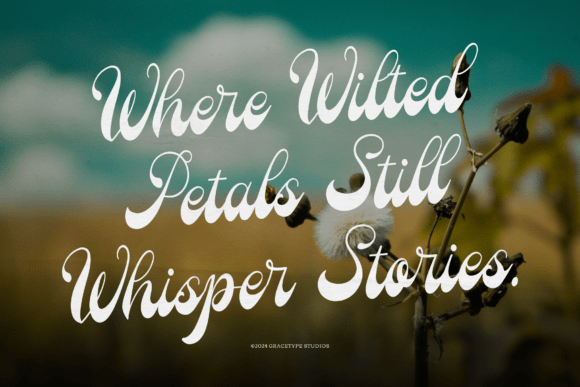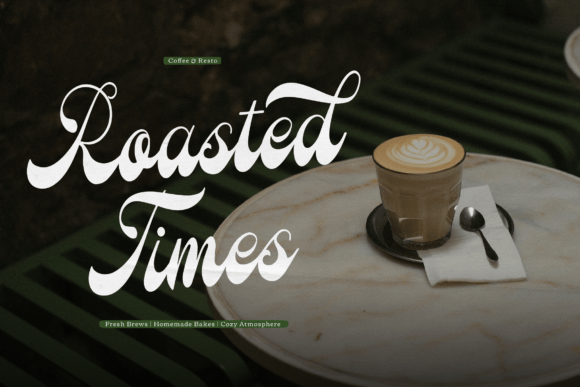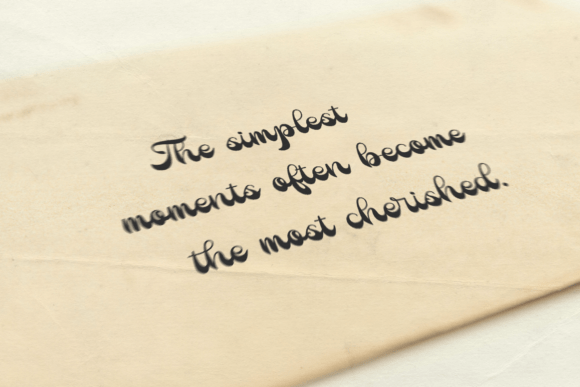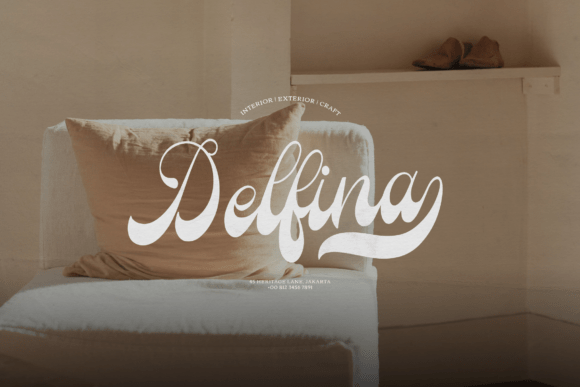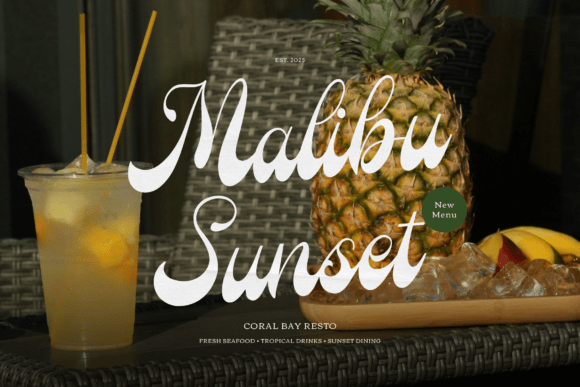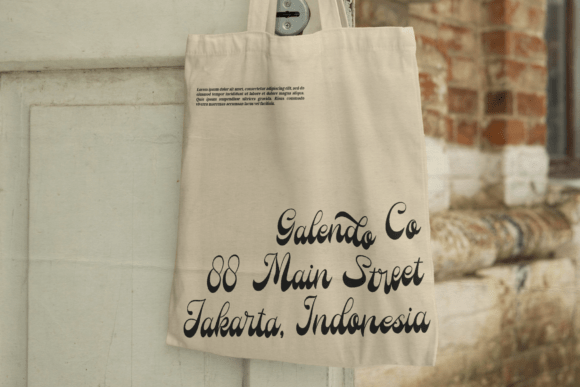
Introduction to Bastille Fields Font
As you sit at your desk, staring at a blank canvas, you’re hit with a wave of creativity. The ideas start flowing, and your mind is racing with possibilities. You envision a logo that screams elegance, a product packaging design that exudes sophistication, or a quote that speaks straight to the heart. In moments like these, having the right design resource can make all the difference. Enter the Bastille Fields Font, a vintage script font that’s about to revolutionize your creative projects.
This high-quality font is a treasure trove for designers, offering a unique blend of classic charm and modern flair. With its transparent background, you can seamlessly integrate it into any project, from logos and branding to homeware designs and product packaging. Whether you’re working on a free download or a commercial project, the Bastille Fields Font is an invaluable addition to your design arsenal.
Bastille Fields Font
- Includes a transparent background for flexible design applications
- Features a unique, elegant design with a vintage flair
- Supports a wide range of languages, including Latin and Cyrillic
Honest Review: Bastille Fields Font
I recently came across the Bastille Fields Font, a high quality design resource that caught my attention. The font has a unique and elegant aesthetic that makes it perfect for a creative project that requires a touch of sophistication.
- ✨ Unique and elegant design that adds a touch of sophistication to any project.
- ✨ High quality vectors that are perfect for printing or digital use.
- ⚠️ Limited character set, which may not be suitable for projects that require a wide range of characters.
- ⚠️ No transparent background option, which can make it difficult to use in certain design scenarios.
Overall, I’m impressed with the Bastille Fields Font. It’s a great addition to any designer’s toolkit, and the free download option makes it an attractive choice for designers on a budget. While it has some limitations, it’s a high quality design resource that’s worth checking out.
The Bastille Fields Font is a high-quality design resource perfect for creative projects that require a unique touch. With a transparent background, this font can be easily incorporated into various design elements.
Tips for getting the most out of the Bastille Fields Font include experimenting with different font sizes and styles, and combining it with other design elements to create a unique look.
Common use cases for the Bastille Fields Font include creating social media graphics, designing business cards, and developing branding materials.